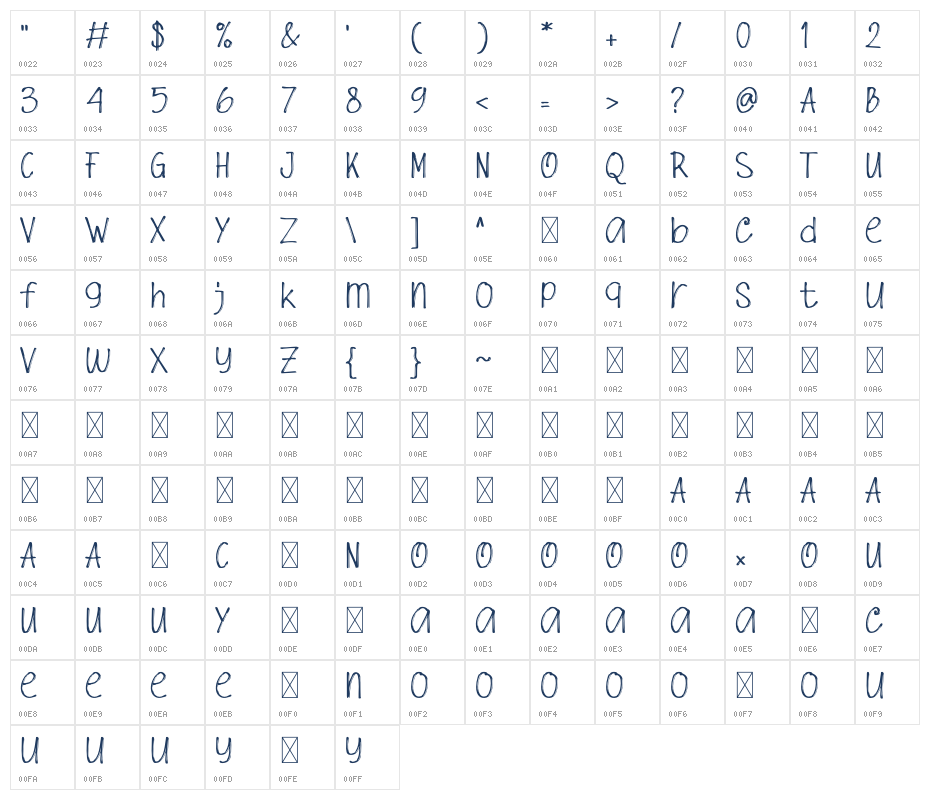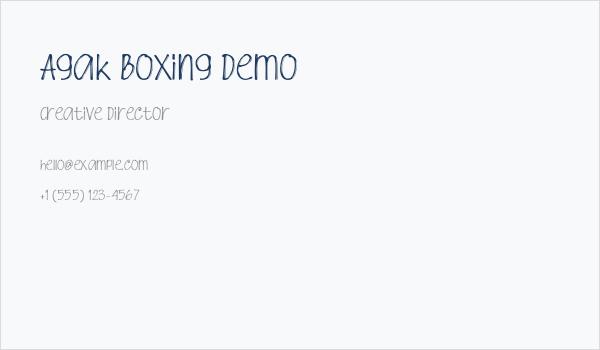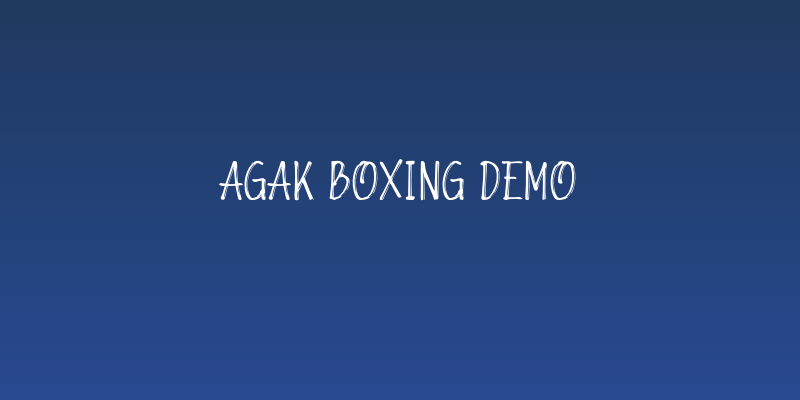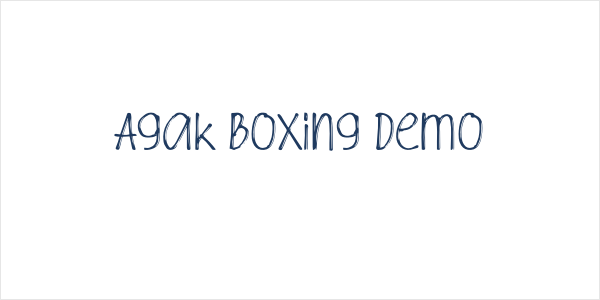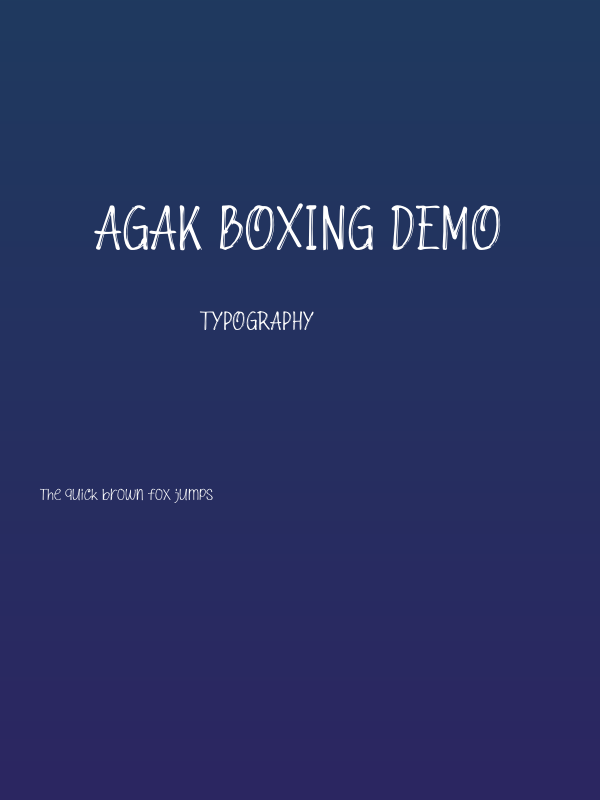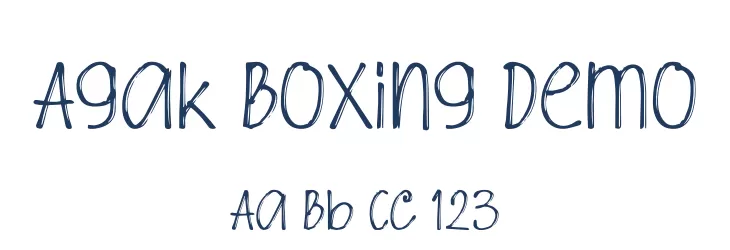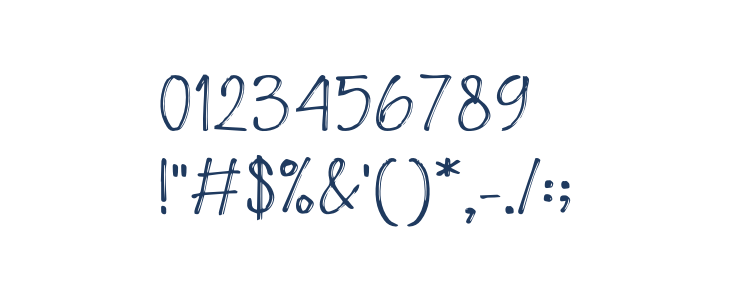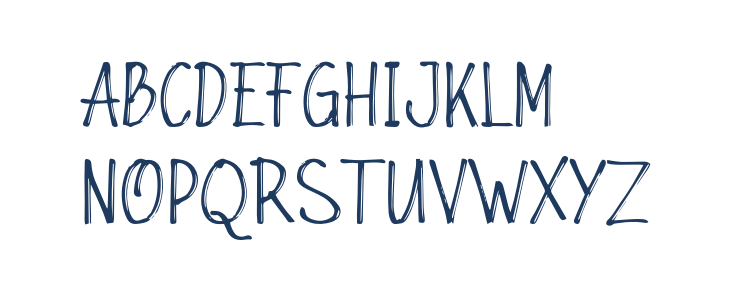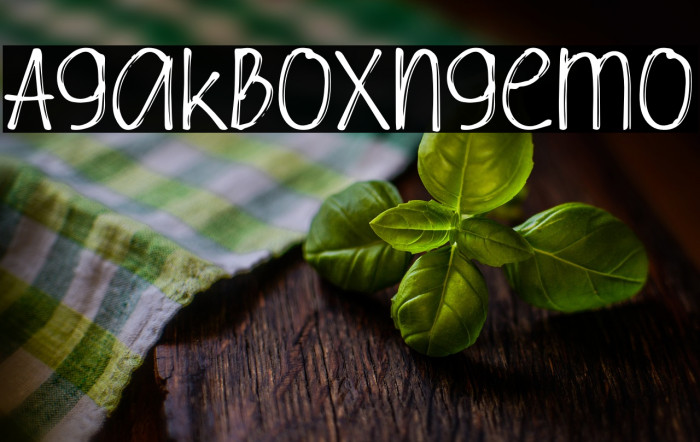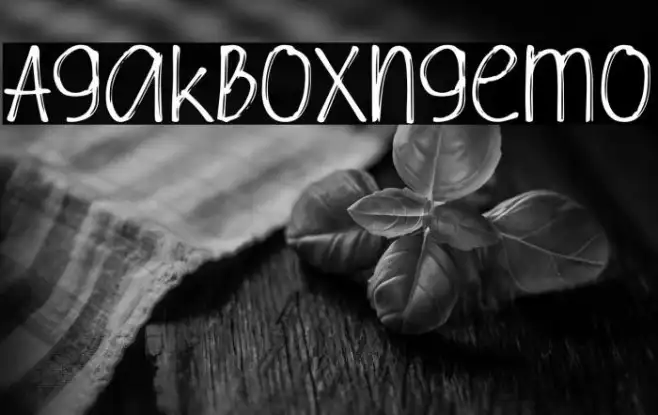
Agak Boxing Demo Font
Agak Boxing Demo Description
A playful, handwritten style font with a casual and friendly appearance, featuring slightly irregular strokes and a sketch-like quality.
| Use Case | Children's books, casual branding, invitations, greeting cards, creative projects. |